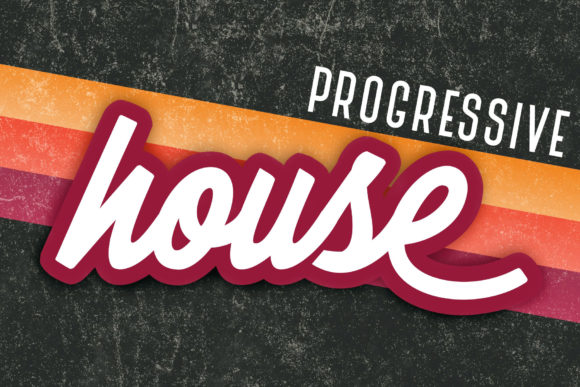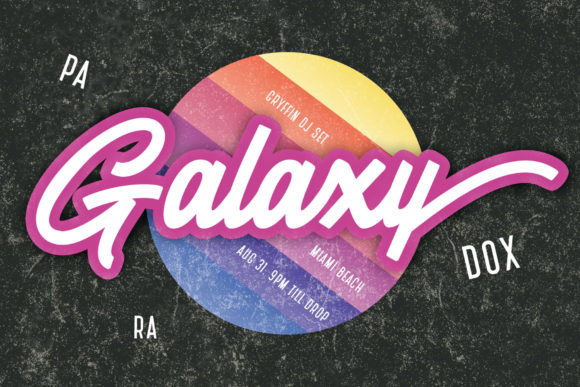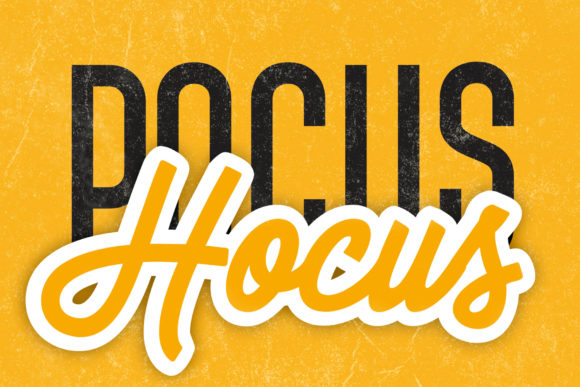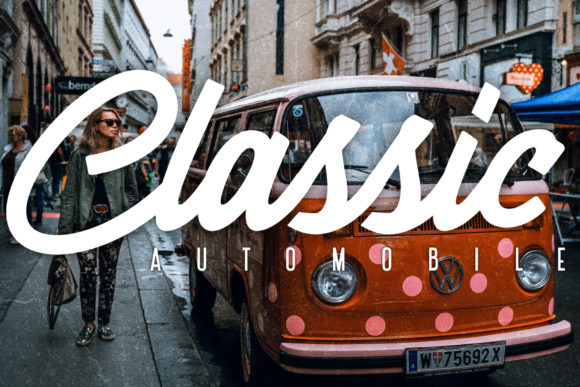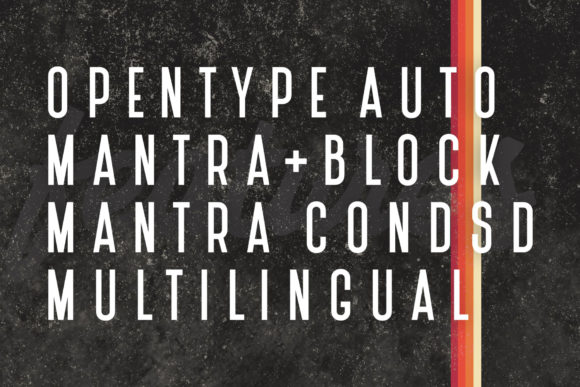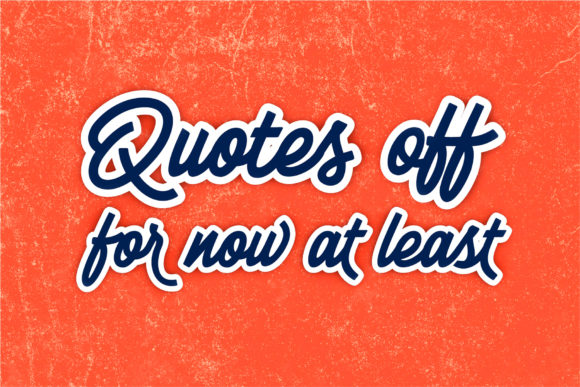
Introduction to Mantra Font
Mantra is a playful magical font with a vintage vibe.
Get inspired by its unique power, and turn any design project into a true standout .
Key Features of Mantra Font
Why Choose Mantra Font?